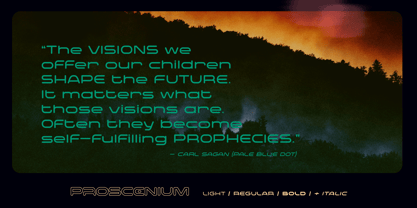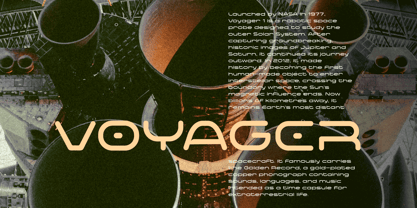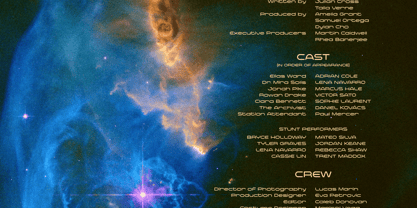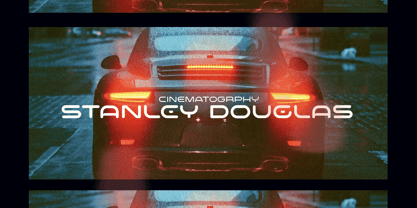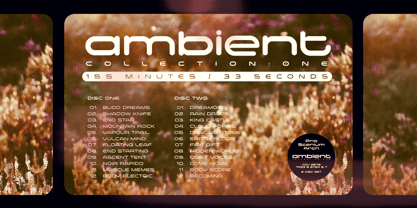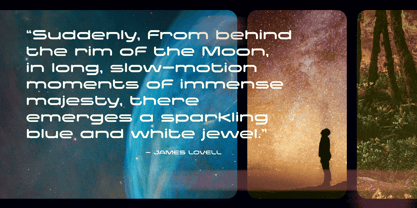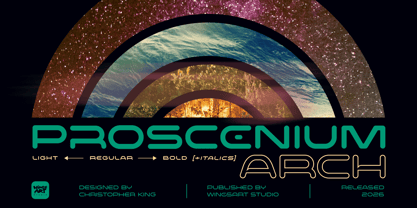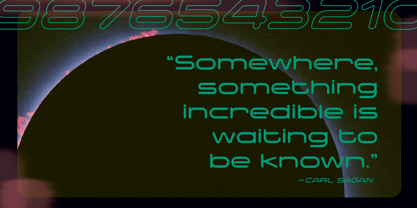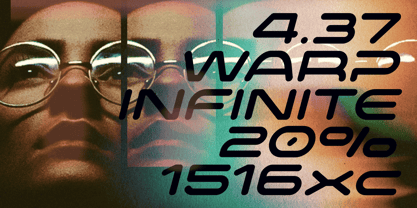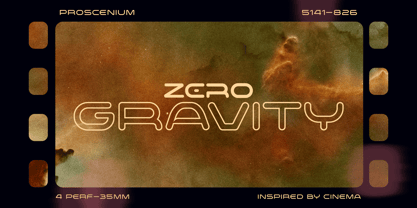
Proscenium Arch
Proscenium Arch - An Ultra-Wide Cinematic Sci-Fi Font
Proscenium Arch is a wide format and futuristic font designed to complement the cinematic aspect ratio of big-screen sci-fi adventures.
Inspired by the typography of opening titles and credit sequences, Proscenium Arch was created to match letterbox-style aspect ratios, typical of 35, 65, or 70mm cinema film formats. It boasts a clean, legible style with design touches that lean towards ideas of technology and science fiction.
It works equally well across print and digital media, making for impactful headers or quotes for magazine editorials, album art, or social media.
It comes in three weights: Light, Regular, and Bold, along with italic styles, all including complete uppercase and lowercase alphabets, numerals, punctuation, symbols, and multilingual support. Also included are alternative ligatures that push the sci-fi vibes even further.